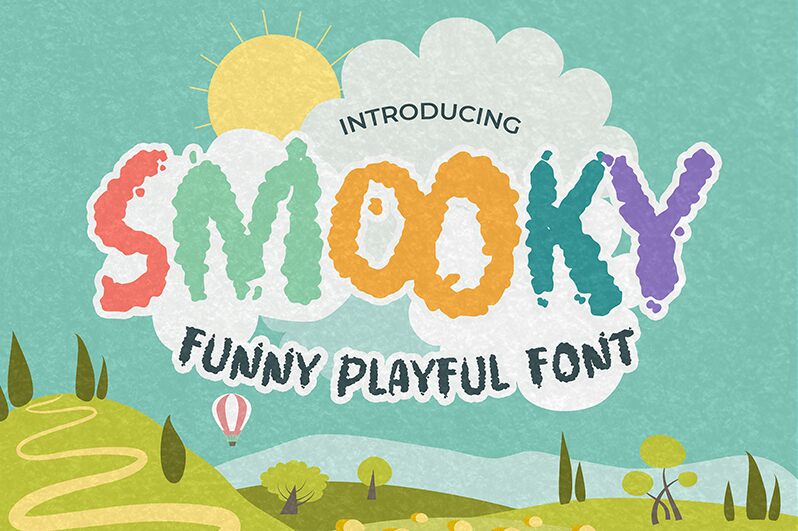
Smooky
Dive into the whimsical world of Smooky, a distinctive display font crafted by the imaginative Gassstype. With its bold and cartoonish style, Smooky exudes a playful charm that captures the essence of fun and creativity. It's not just any font; this Funny Playful Font stands out with its unique and natural handwritten appeal-each character is an artistic expression designed to infuse your projects with a lighthearted touch.
Born from quick sketches on Procreate and meticulously transformed into vector format, Smooky retains authentic quirks that make it irresistibly endearing. Whether you're designing a vibrant logo, packaging with personality, or looking to sprinkle some joy onto branding projects, Smooky is your go-to typeface for generating smiles. Its suitability for child-centric designs is unparalleled, ensuring that your creative endeavors resonate with warmth and enchantment. Embrace the friendly spirit of Smooky in your next project for results that are as delightful as they are impactful.